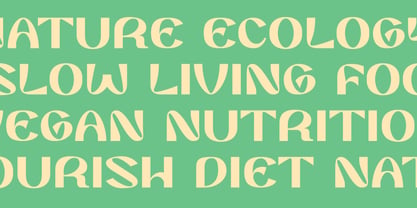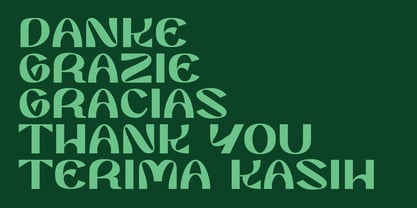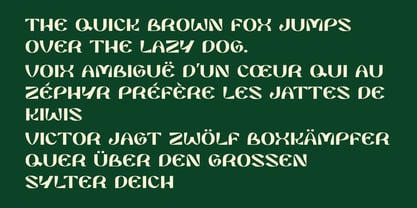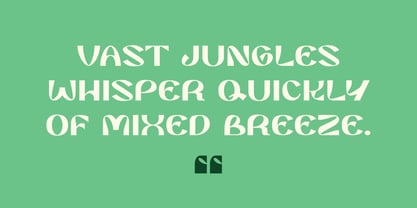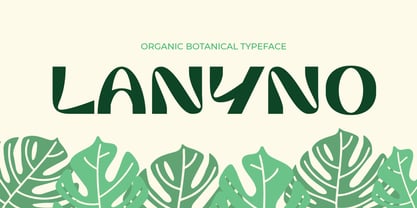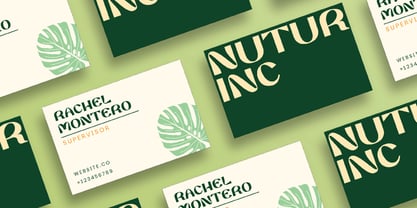
Lanyno
by Habitype
The Lanyno Font Family was designed by Fahrul Saputra and published by Habitype. Lanyno contains 1 styles. More about this family
LANYNO is a captivating organic display font explicitly designed to capture a wholesome, eco-conscious vibe. This typeface brings a sense of natural warmth, fluid movement, and modern elegance to your creative work.
With its distinctive, leaf-like curves, thick-to-thin fluid strokes, and a uniquely stylized gentle structure, LANYNO is the ultimate choice for brands looking to ground themselves in nature. The letters feature beautifully curved terminals and botanical silhouettes that emulate the sweeping contours of lush, tropical foliage.
Designers: Fahrul Saputra
Foundry: Habitype